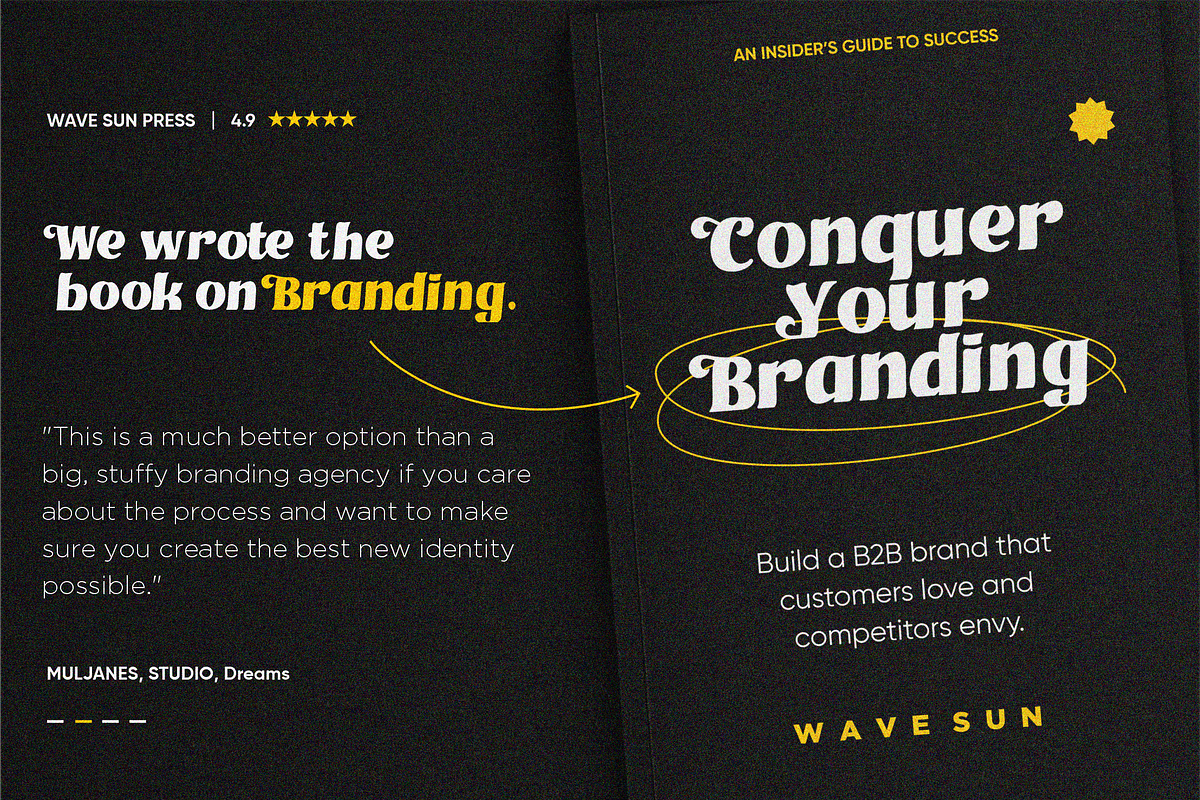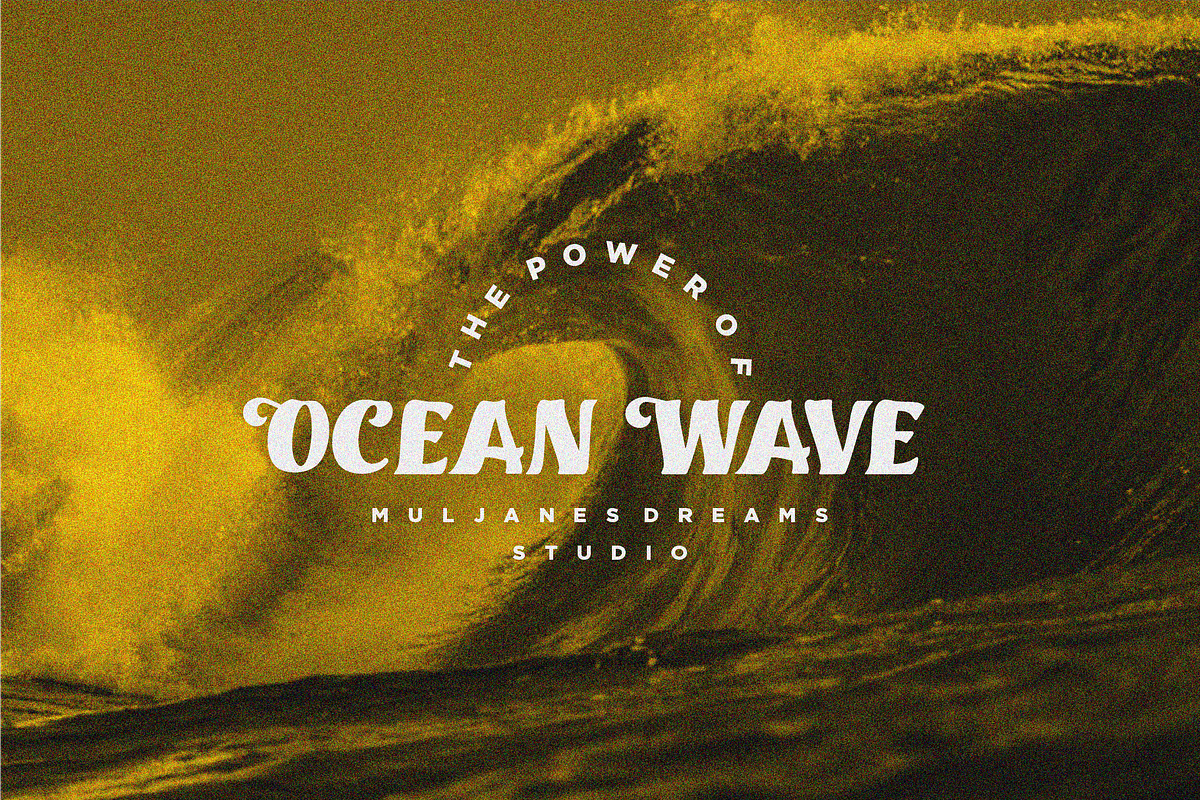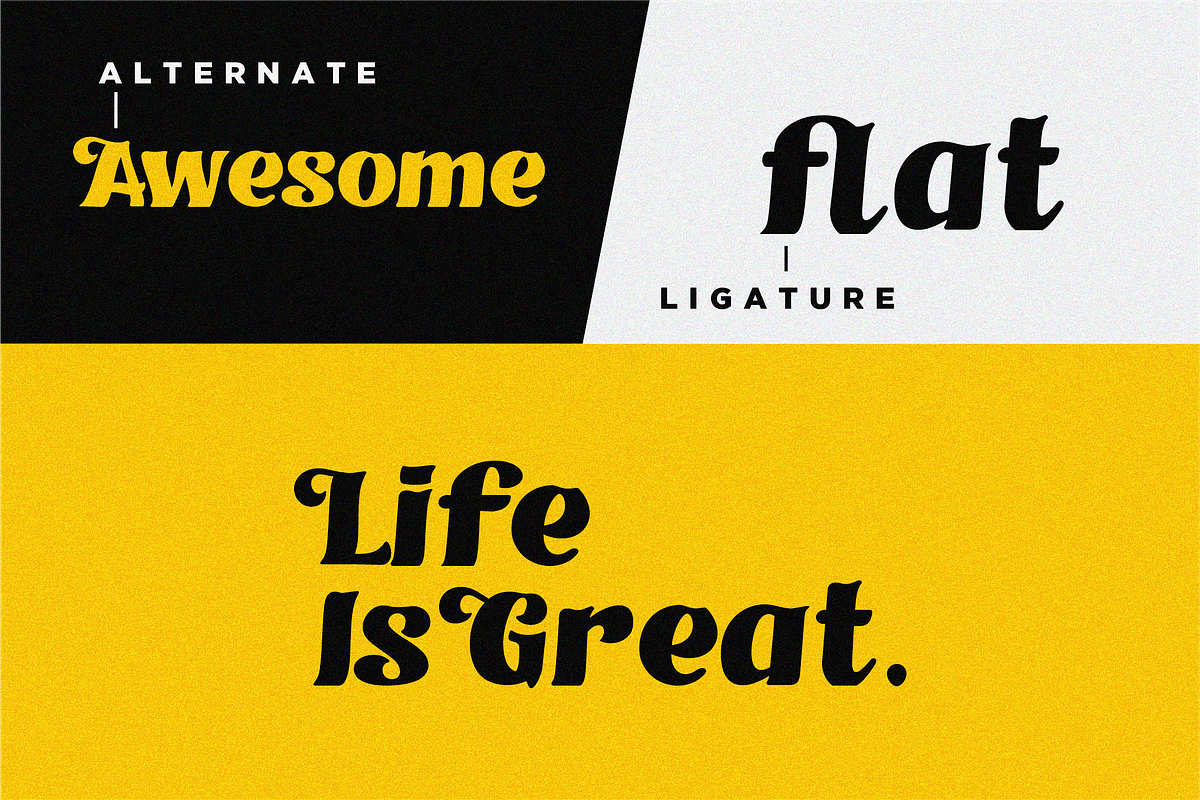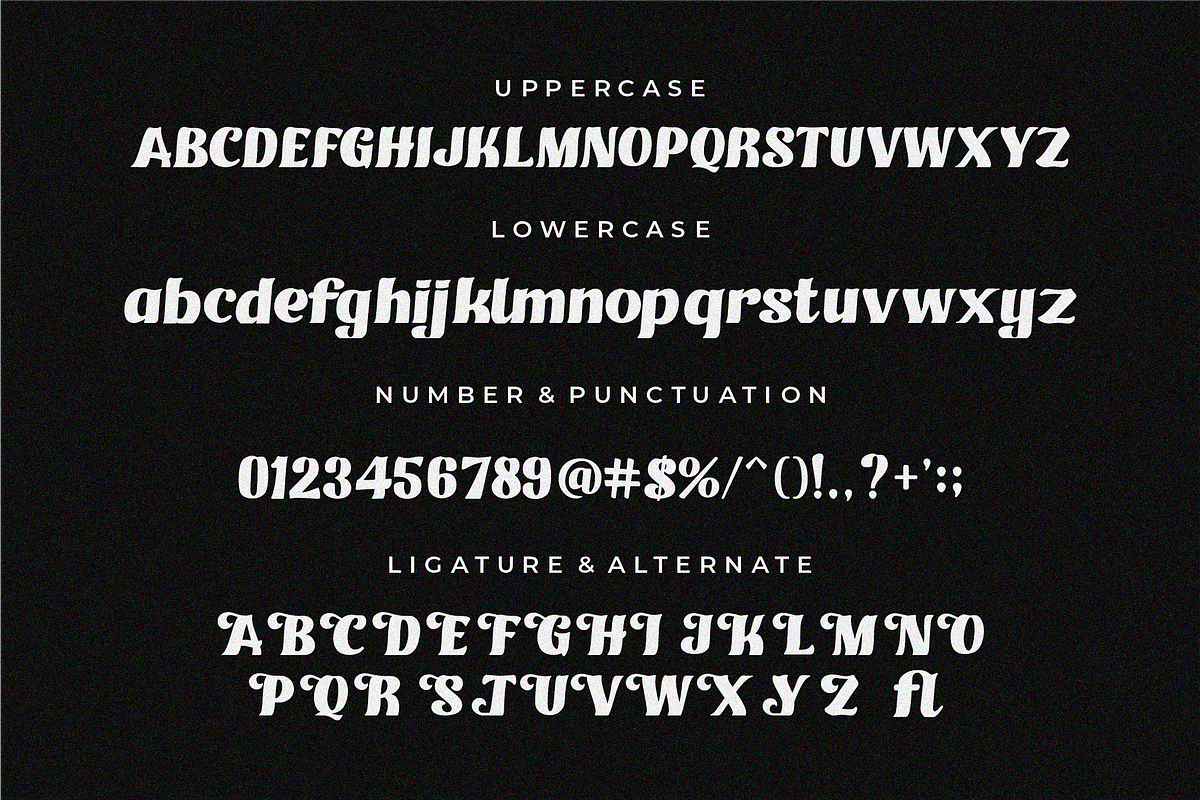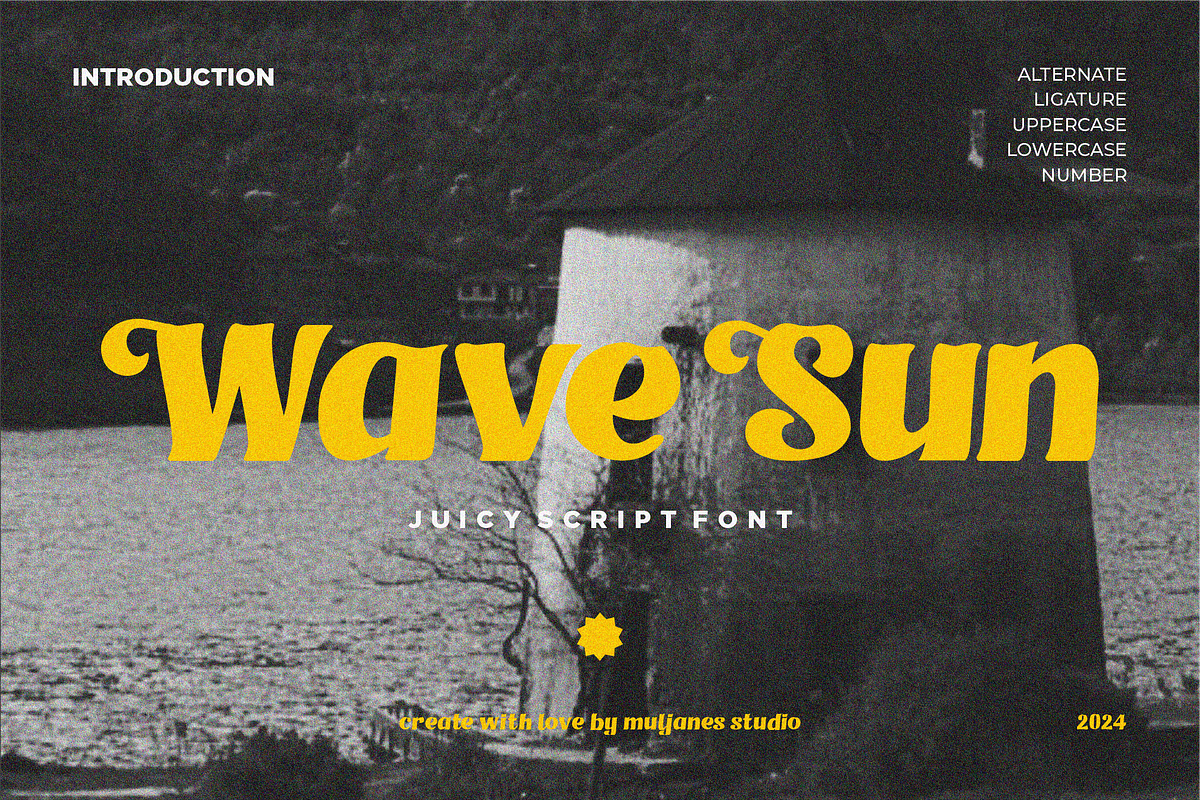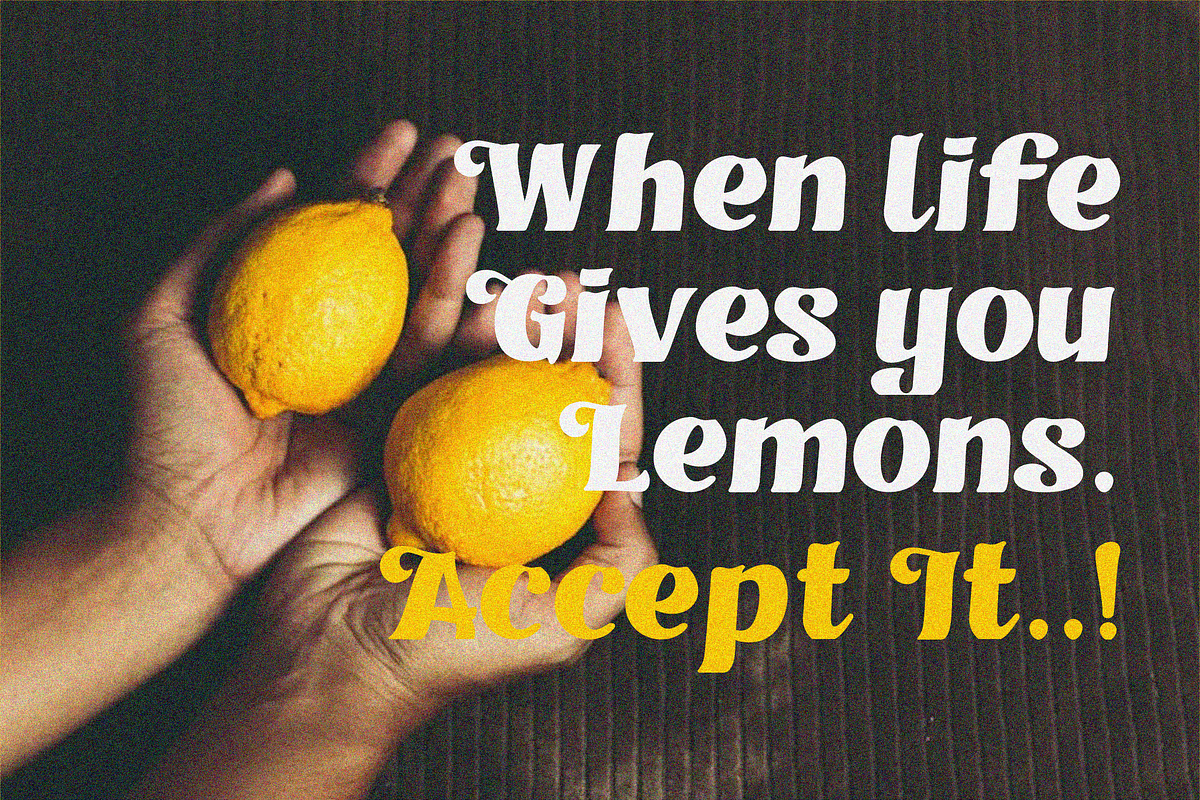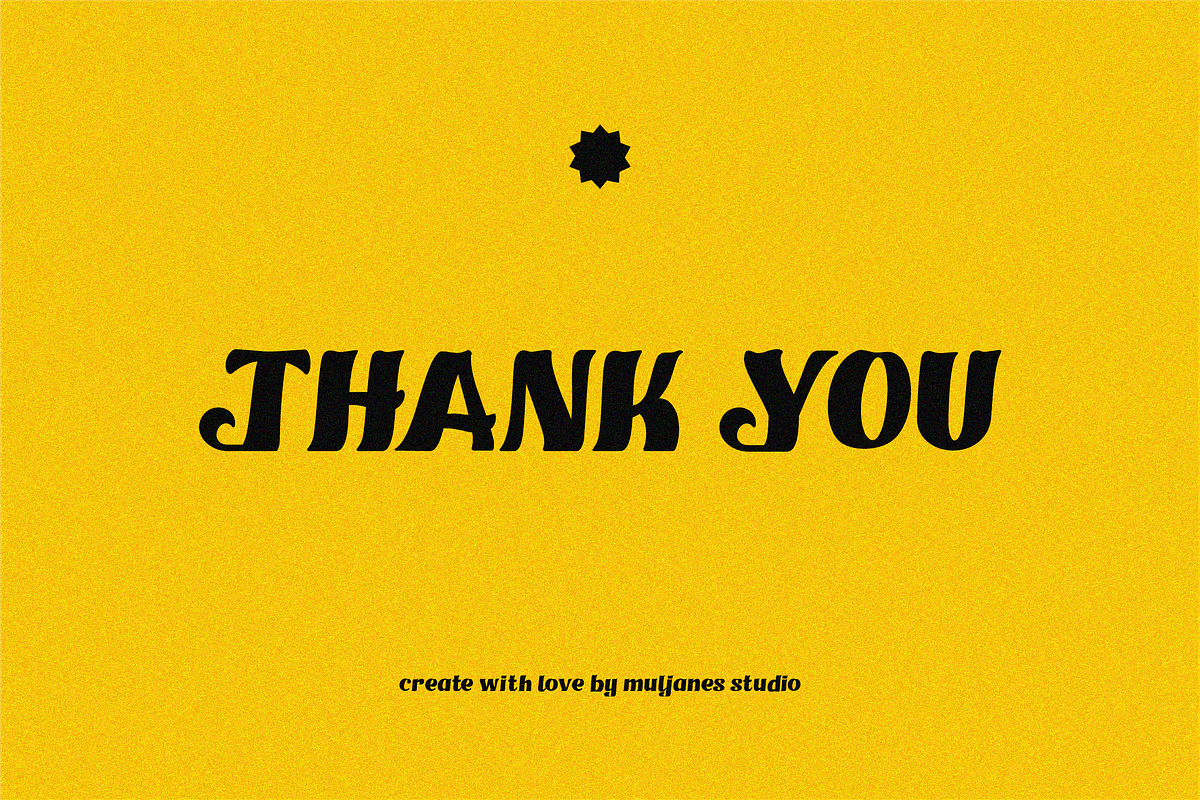
Wave Sun Juicy Script Font
Wave Sun Juicy Script Font is a new fresh & juicy script font. This font looks elegant, stylish and perfect for any projects that need natural taste.
Wave Sun perfect for logotypes, quotes, headlines, titles, book covers, labels, branding projects, magazines, banners, packaging, novels, labels and much more
- Alternate & Ligature